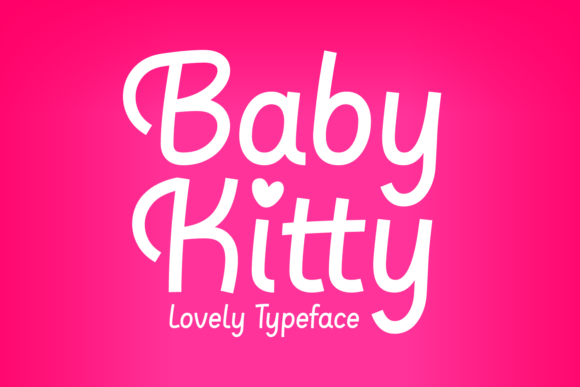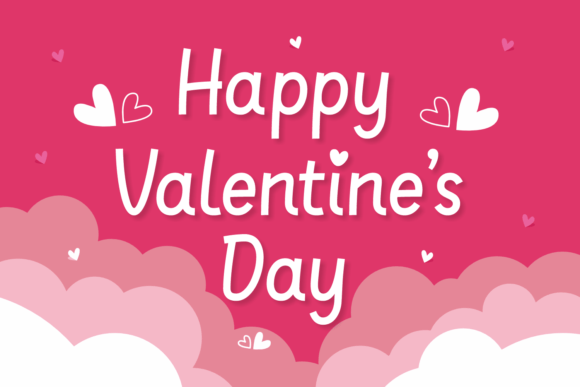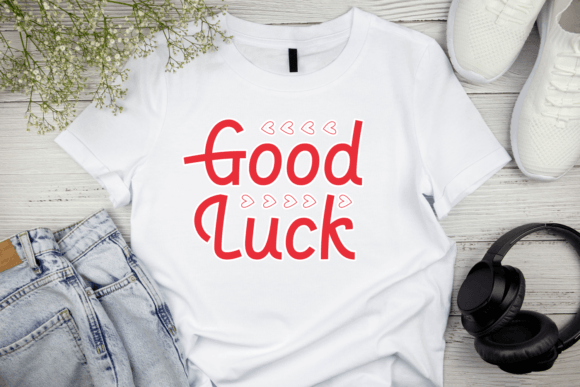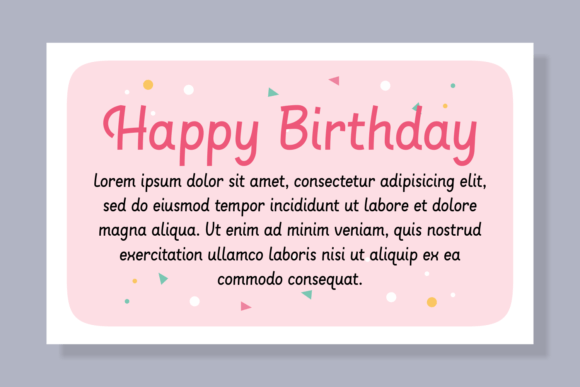
Baby Kitty Font: A Cute Sans Serif for Playful Branding
About the Baby Kitty Font
Meet Baby Kitty Font, a stunning font that brings a touch of elegance and professionalism to any design. Baby Kitty is a delightful sans-serif font exuding charm and innocence. Its rounded edges and gentle curves evoke a playful and cuddly vibe, perfect for children’s books, posters, and branding projects seeking a warm and inviting aesthetic. Baby Kitty adds a sprinkle of joy to any design endeavor.
Baby Kitty’s playful nature makes it ideal for children’s products, branding for toys or sweet treats, and playful posters. It also works well in short headlines or taglines where its charming personality can shine. However, its low x-height and rounded forms make it less suitable for body text or UI elements requiring high readability. Avoid using it for lengthy paragraphs or applications demanding sharp legibility.
Pairing Baby Kitty with a clean sans-serif like Open Sans for body copy creates a balanced contrast, while a playful script font like Pacifico adds a touch of whimsy for a more elaborate design. For a more sophisticated feel, consider pairing it with a slightly more geometric sans-serif such as Montserrat.
The font’s overall personality is undeniably cheerful and approachable, conveying a sense of youthful energy and friendliness. This makes it a strong choice for brands targeting a young audience or aiming for a lighthearted and inviting brand image.
Baby Kitty Font Usage Examples
Baby Kitty Font Example